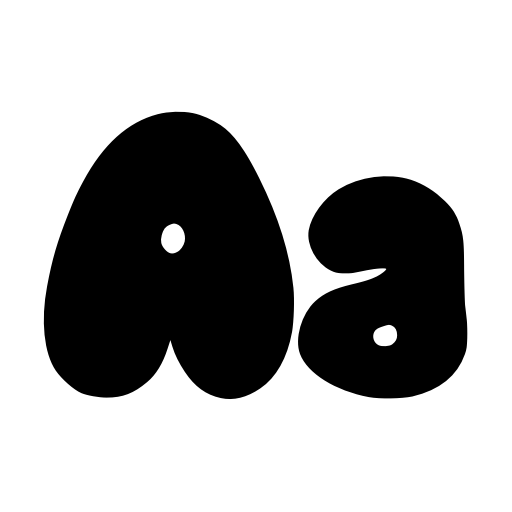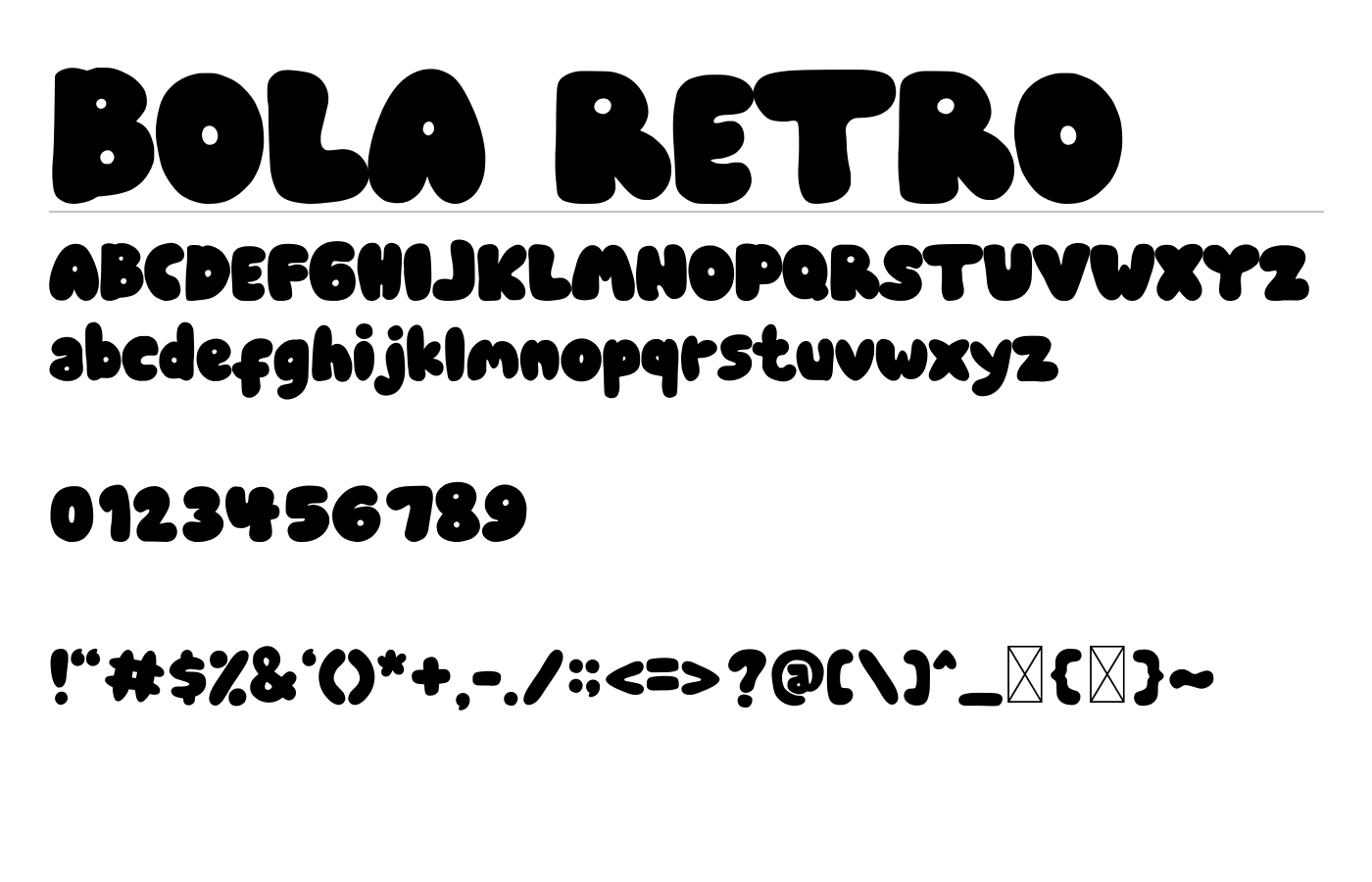
BOLA RETRO is a bold, playful sans serif font with thick, rounded letterforms that evoke a fun, friendly retro vibe. Its chunky shapes and high x-height make it perfect for eye-catching headlines, logos, and designs that want to convey energy and nostalgia, especially for branding and posters aimed at a youthful or casual audience. This font stands out with its soft curves and whimsical style, creating an approachable yet distinctive look.
BOLA RETRO Font
About BOLA RETRO Font
| Font family | BOLA RETRO Font |
| Designer | Minimalist Eyes |